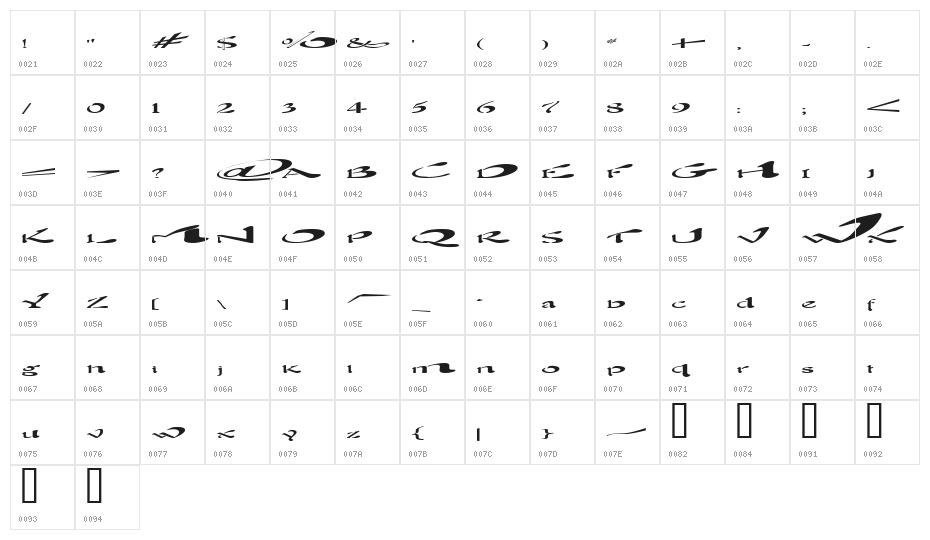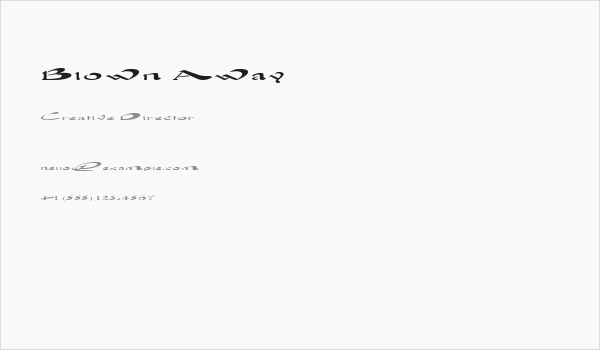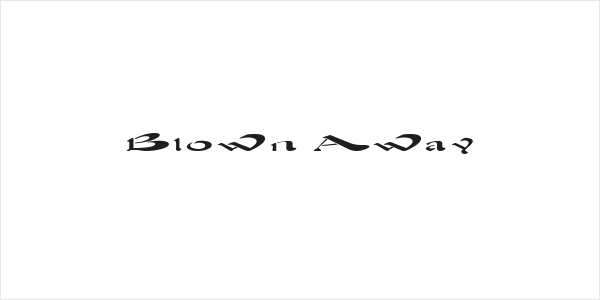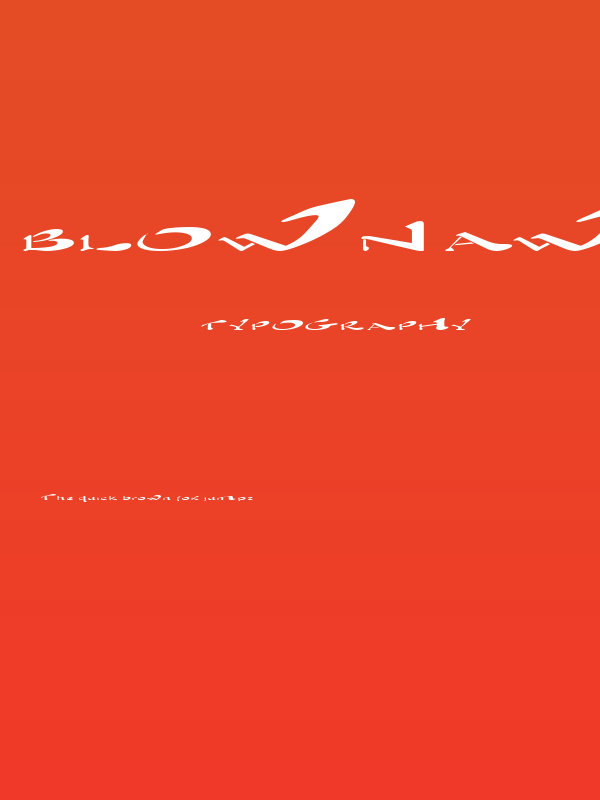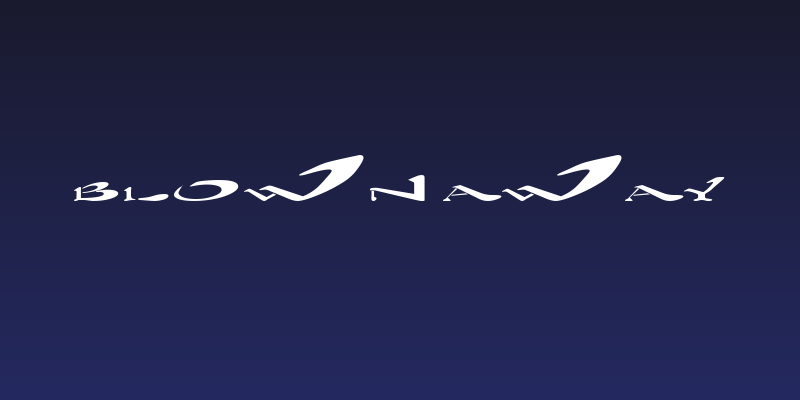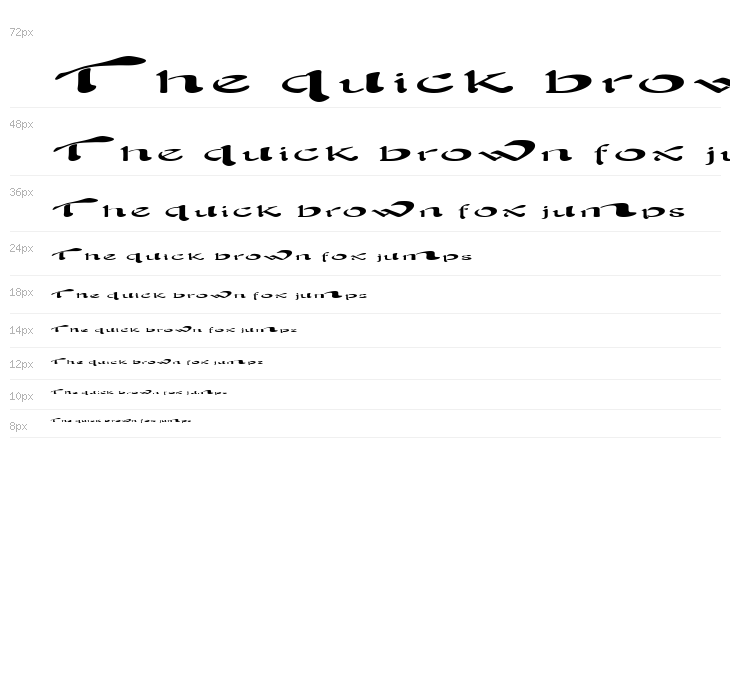
Blown Away Font
Blown Away Description
This font features a dynamic and flowing style, characterized by its sweeping curves and elegant, elongated forms. The letters have a distinctive slant, giving a sense of motion and fluidity. The uppercase characters are bold and prominent, with unique flourishes that add a touch of sophistication. The lowercase letters maintain a consistent style, with smooth transitions and a harmonious balance. Numbers are equally stylized, offering a cohesive look across all characters. Special characters are designed with the same attention to detail, ensuring they blend seamlessly with the rest of the font. Overall, this font exudes an artistic and creative flair, making it suitable for projects that require a touch of elegance and expressiveness.
| Overall Style | Artistic and expressive |
| Use Case | Logos, headlines, artistic projects |
| Proposed Projects | Ideal for creative projects such as branding, invitations, posters, and artistic designs. |